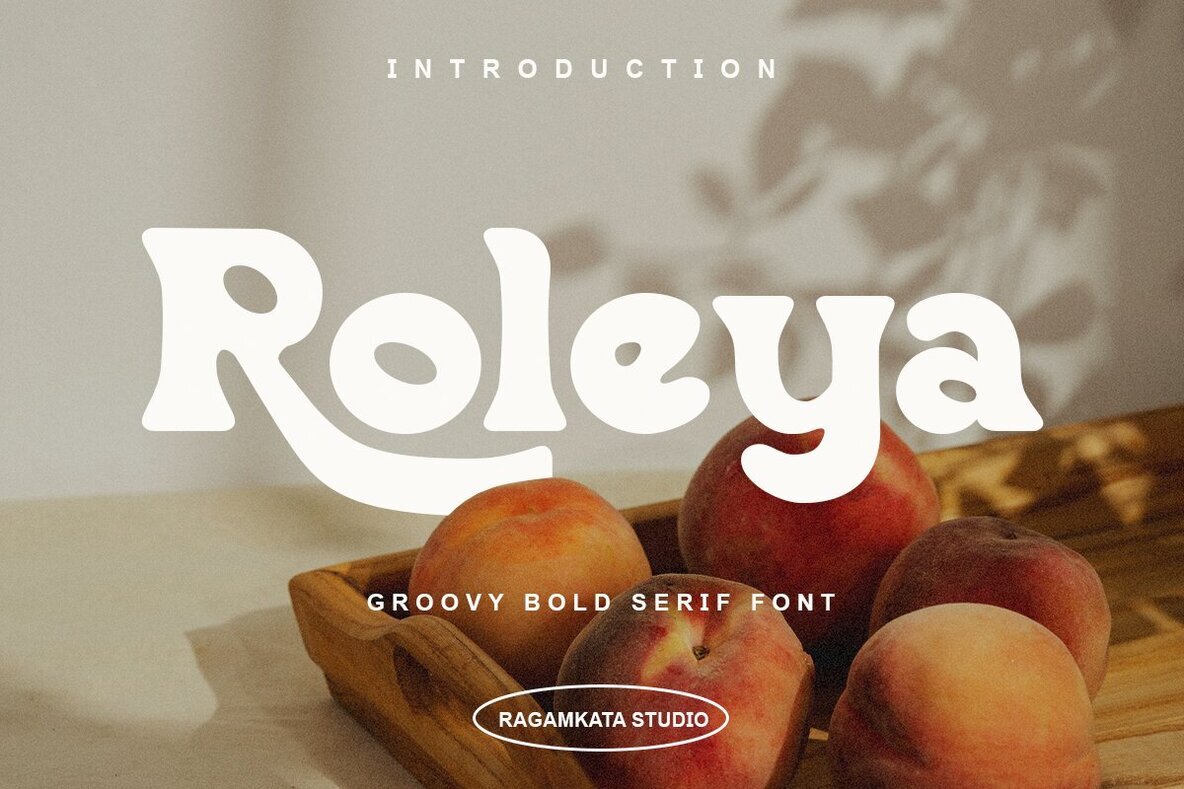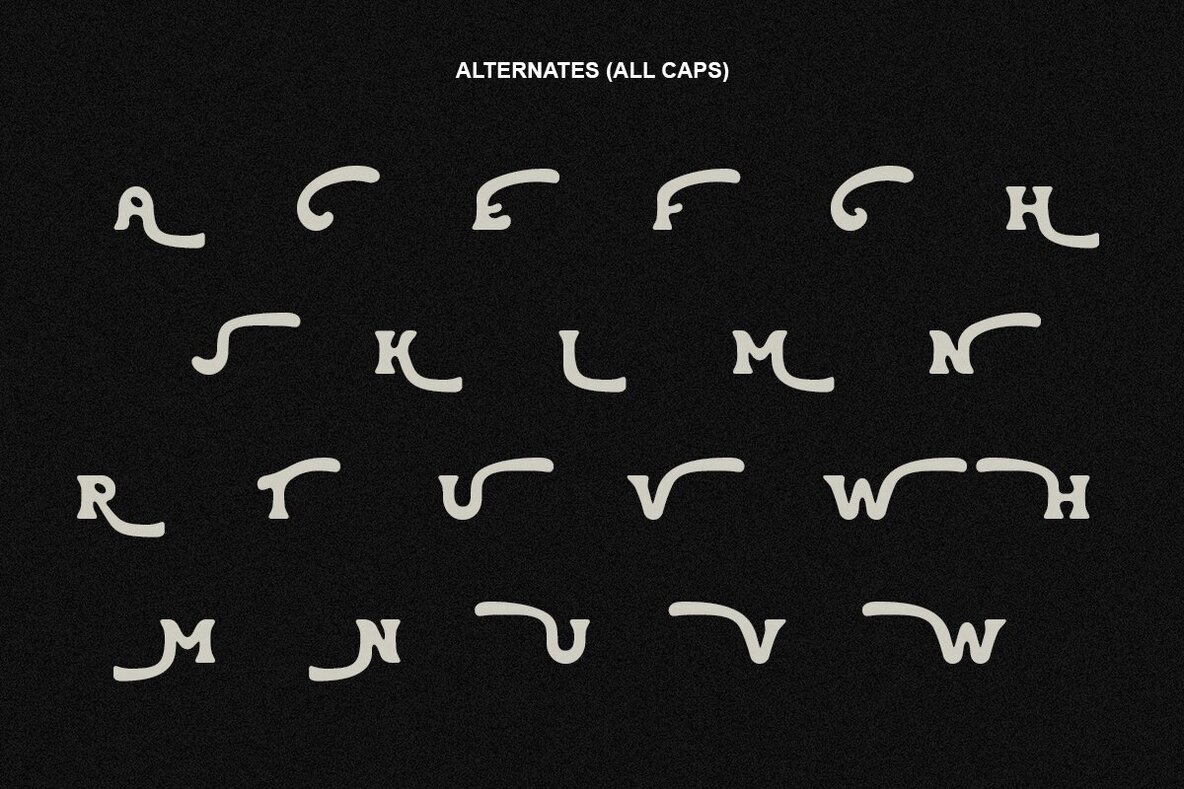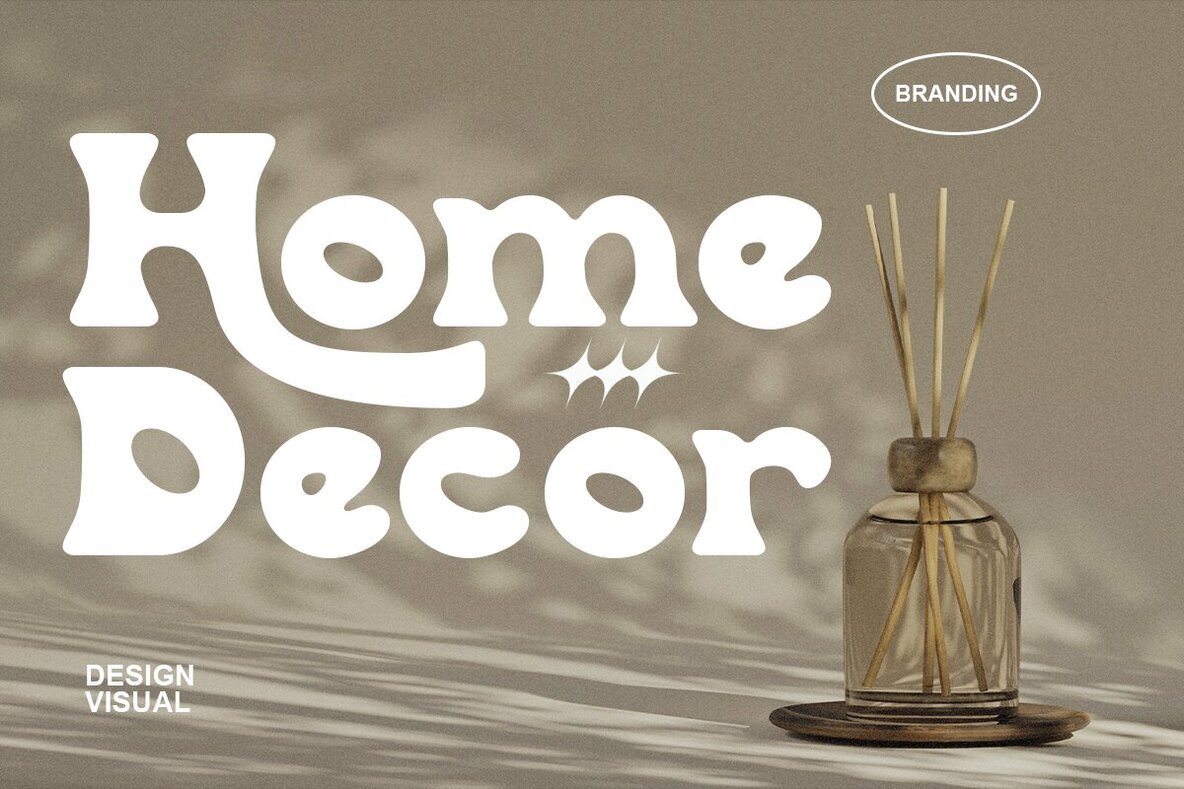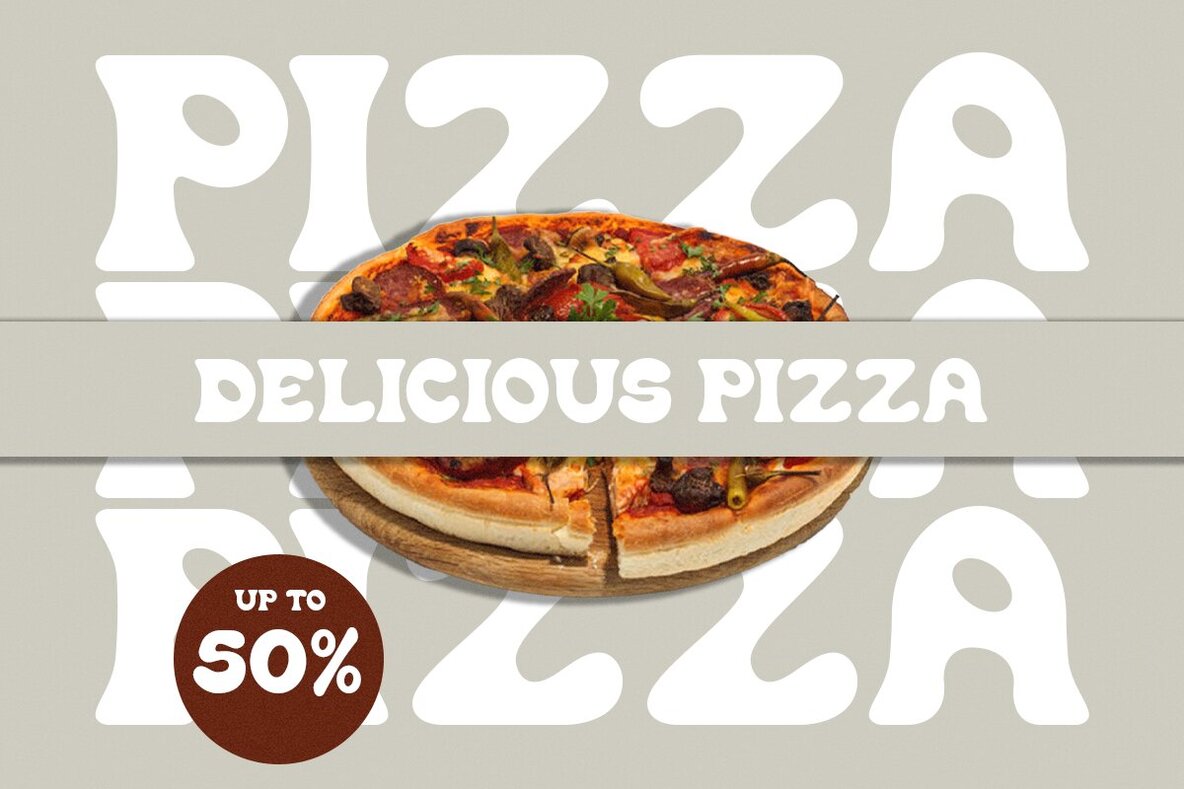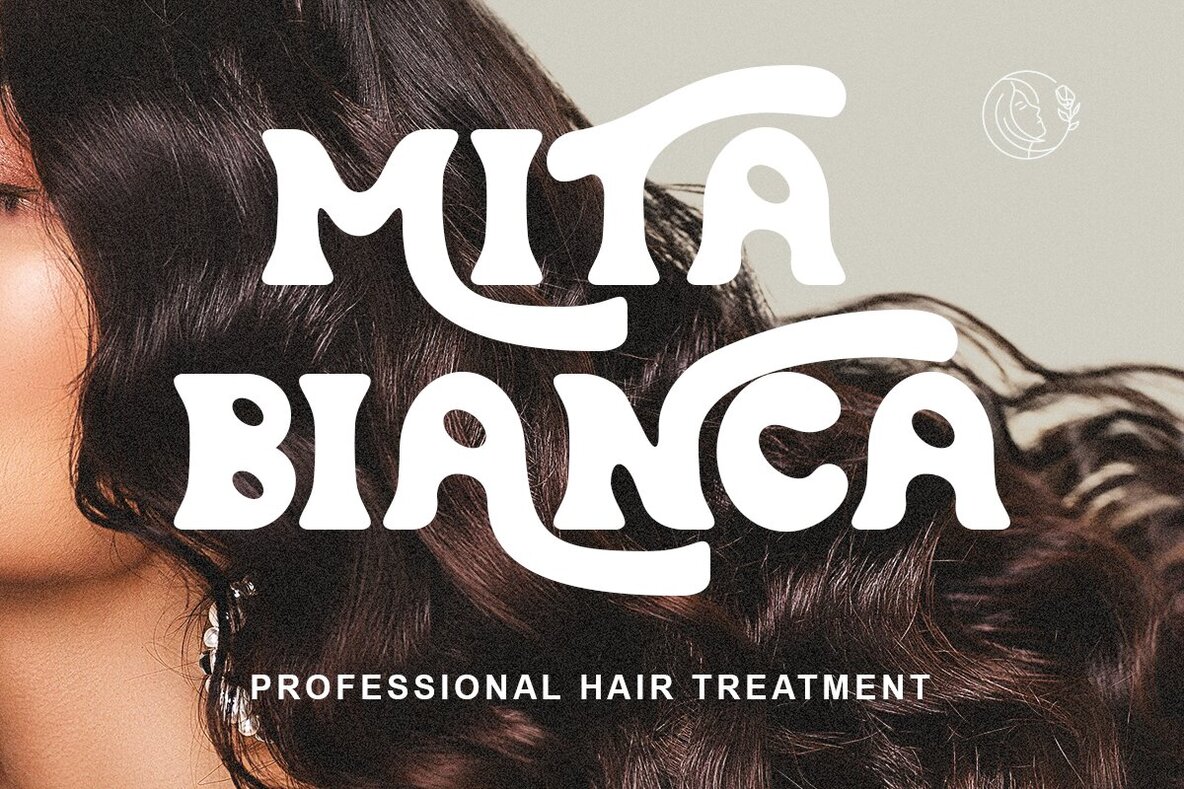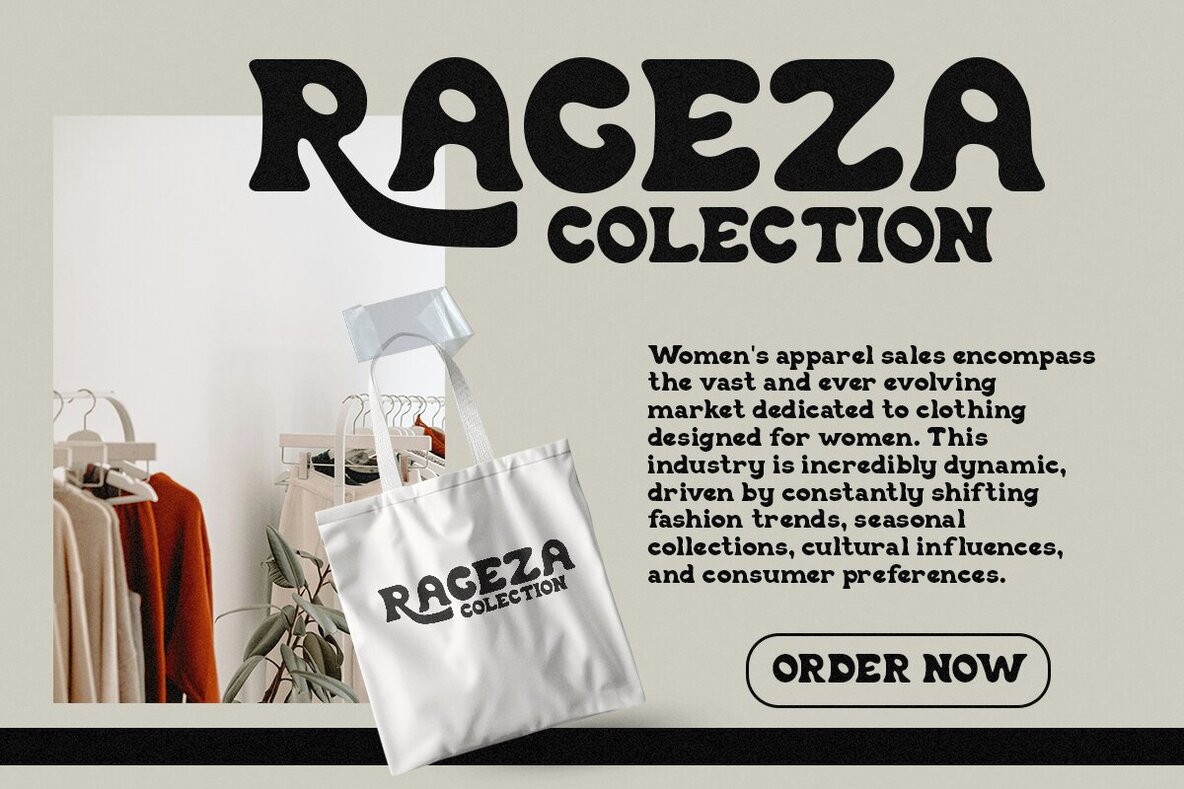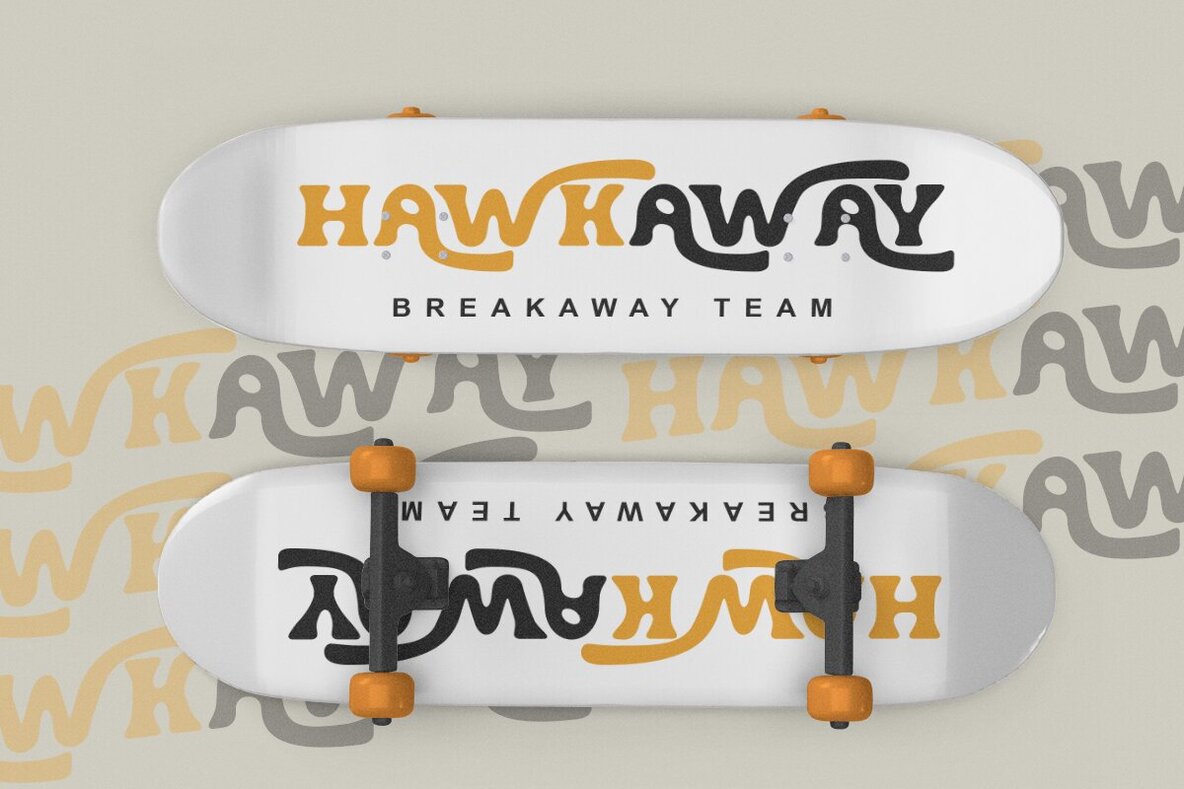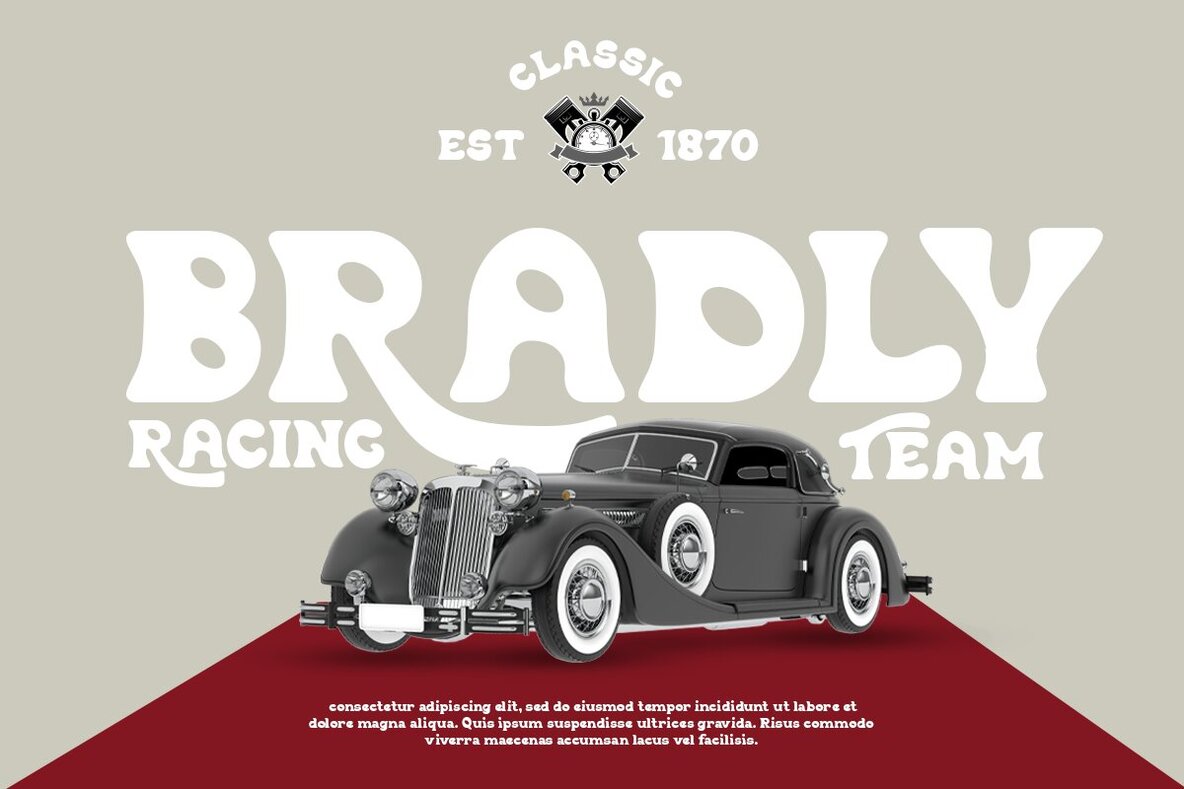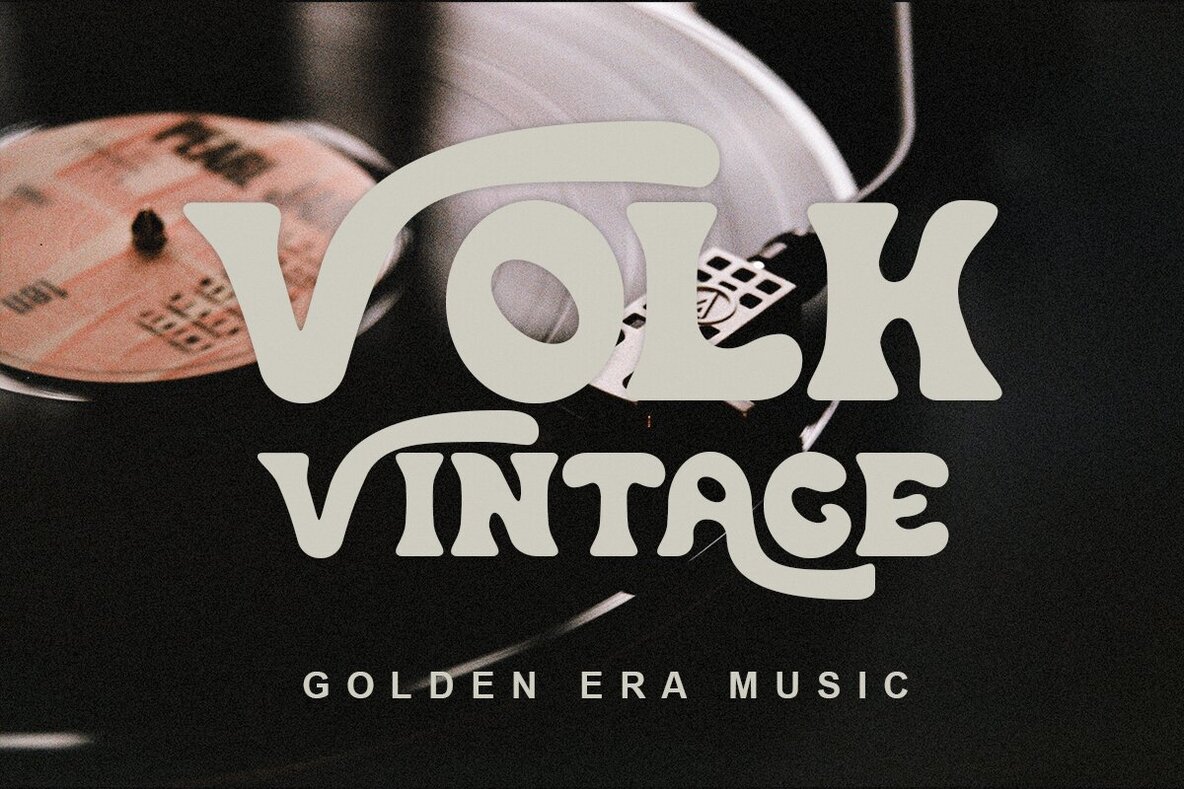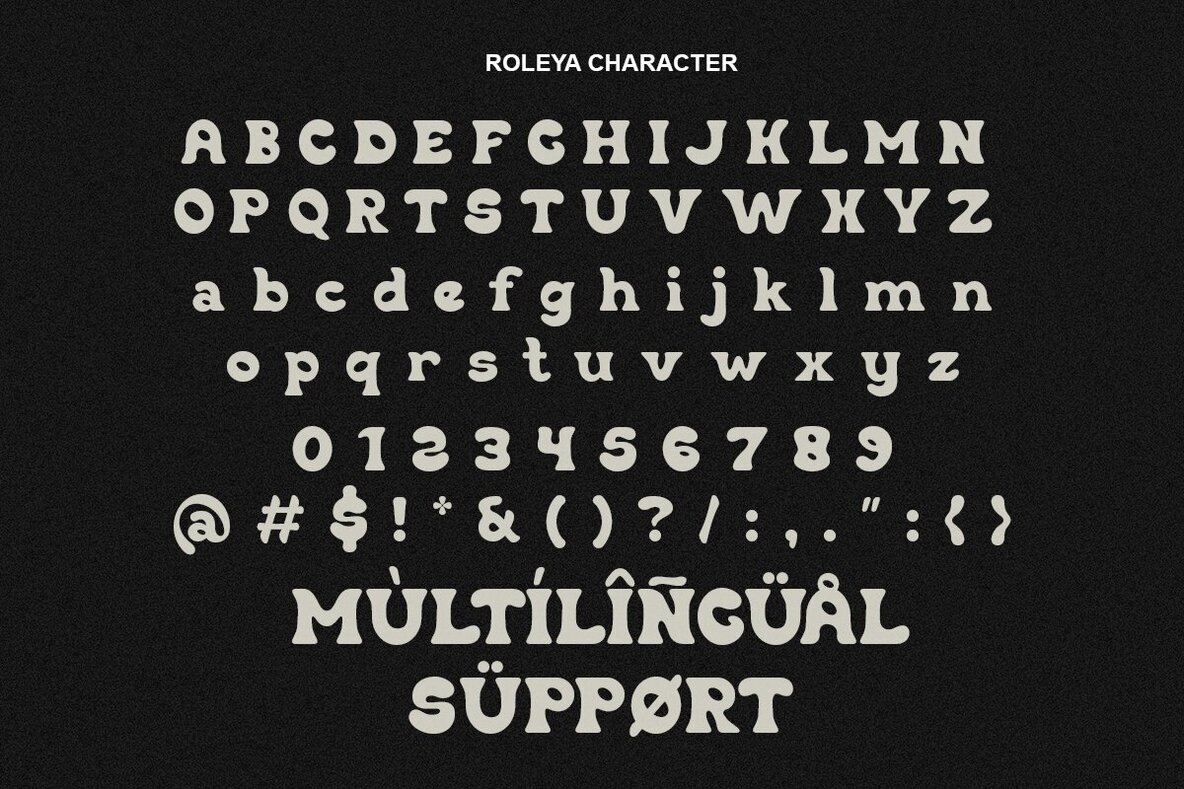
Roleya Font
Roleya Regular
Roleya Italic
Infuse your projects with vibrant energy and a youthful vibe with Roleya, a bold serif font that elegantly merges retro charm and modern style. Its smooth design and striking presence make it a perfect choice for branding, invitations, or digital art. The bold character and distinctive style ensure your designs leave a lasting impression.Groovy Bold Serif with Modern Flair - Roleya